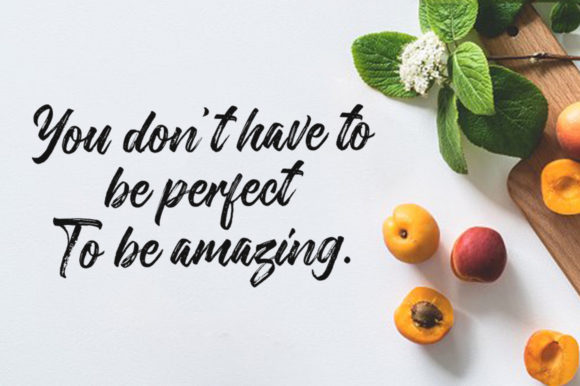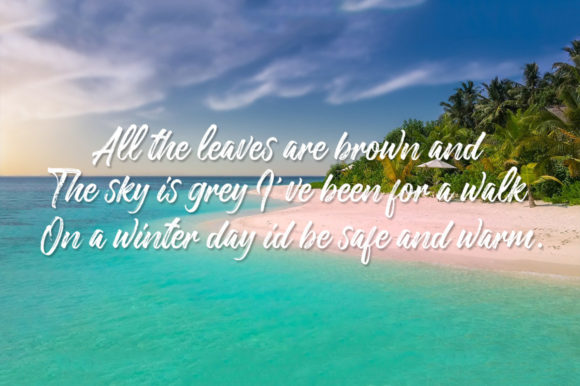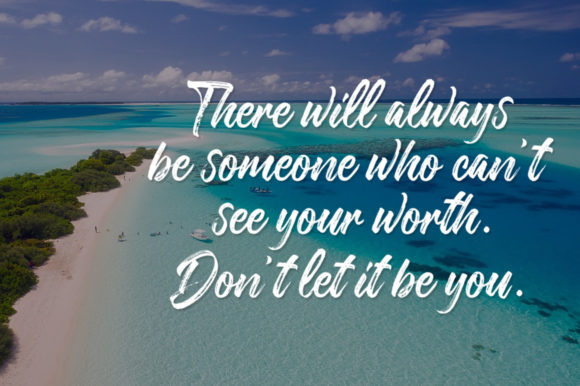
Introduction to Nautical Font
Have you ever been working on a creative project and stumbled upon the perfect font that instantly elevates your design? For many designers, that moment of discovery is pure magic. And for those who love the ocean, the Nautical Font is about to become your new best friend. This lovely brushed handwritten font features a sweet flow that’s perfect for creating gorgeous wedding invitations, beautiful stationary art, eye-catching social media posts, and much more!
What sets the Nautical Font apart is its high-quality design, making it a valuable resource for designers looking to add a touch of sophistication to their projects. With its transparent background, this font is perfect for overlaying on images or using as a standalone design element. Whether you’re working on a free download or a paid project, the Nautical Font is sure to impress.
Nautical Font
- Unique and creative typography for various design projects, suitable for nautical and ocean-themed designs.
- Perfect for use in various creative projects, such as logos, branding, and packaging design.
- Designed with a distressed, vintage aesthetic, adding a unique touch to any design project.
Honest Review: Nautical Font
I recently had the chance to experiment with the Nautical Font, and I must say it’s been a valuable addition to my design toolbox.
What works well: ✨ The font’s high quality and legibility make it perfect for creative projects that require a clean, modern look. The free download option is also a big plus, allowing designers like me to test it out without committing to a purchase. The transparent background feature is another bonus, making it easy to layer over images or other design elements.
The Nautical Font comes in a range of styles and weights, making it versatile enough for use in everything from logos to menus. The font’s nautical theme is also a great starting point for designers looking to create a cohesive brand identity.
Limitations: ⚠️ While the font is generally well-designed, I did notice some minor inconsistencies in the spacing between letters. This can be a bit distracting, especially in larger blocks of text. Additionally, the font may not be suitable for use in very small sizes, where the letters can become difficult to read.
Overall, I’m impressed with the Nautical Font and would recommend it to designers looking for a high-quality, free download. Just be aware of the potential spacing issues and consider using it in larger sizes for optimal results.
- Perfect for creative projects that require a modern look
- Range of styles and weights available
Nautical Font
The Nautical Font is a free download, high-quality design resource ideal for creative projects. Its unique style and transparent background make it perfect for various design applications.
Tips for Getting the Most Out of Nautical Font
Use the Nautical Font for titles, headings, and other design elements to add a touch of nautical style to your project.
Combine the Nautical Font with other design elements, such as images and graphics, to create a cohesive and visually appealing design.
The Nautical Font is ideal for projects related to the sea, such as:
• Beach-themed designs
• Nautical-themed posters and prints
• Underwater-themed illustrations
Yes, the Nautical Font has a transparent background, making it ideal for use on various design elements such as icons, graphics, and logos. This feature allows for easy layering and blending with other design resources.